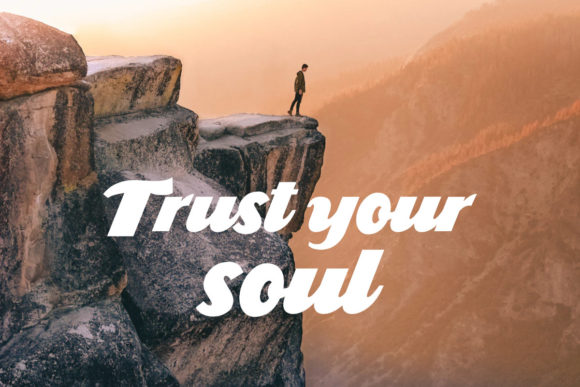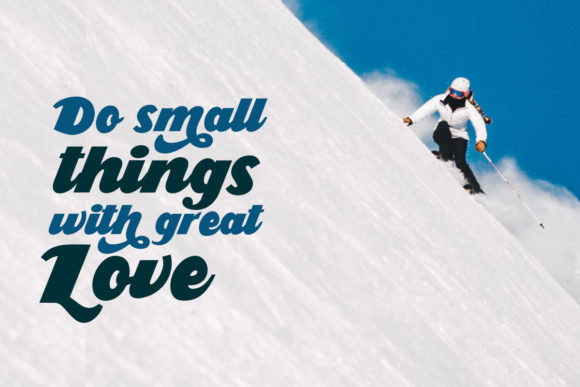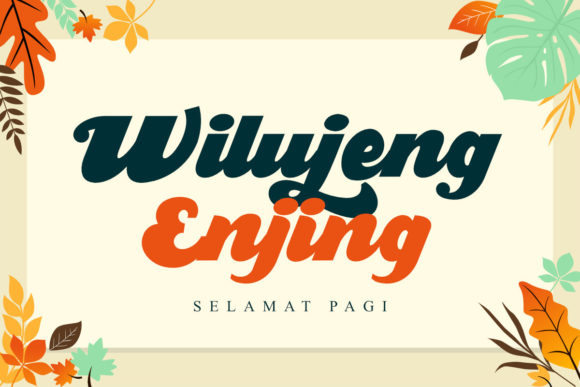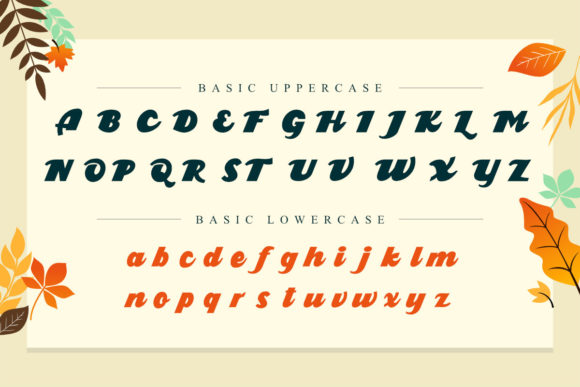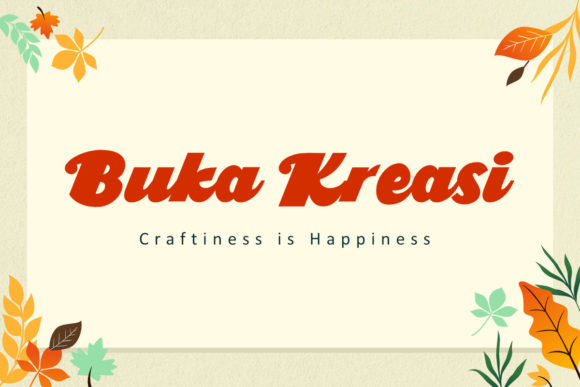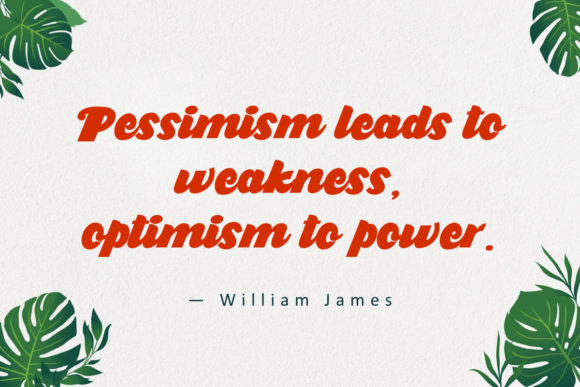
Introduction to Loman Font
Loman is a vintage styled, bold handwritten font.
This font reads as strong, confident, and dynamic and can add tons of nostalgic character to your designs .